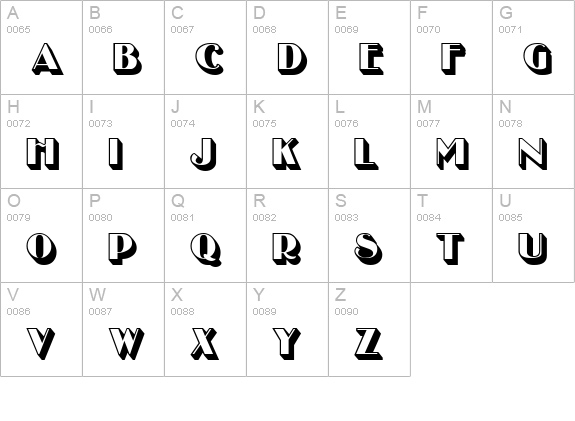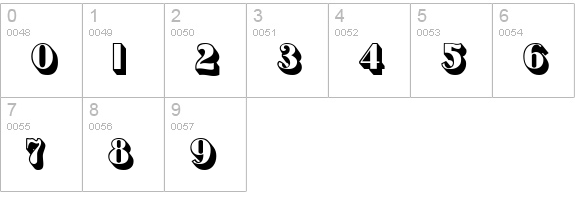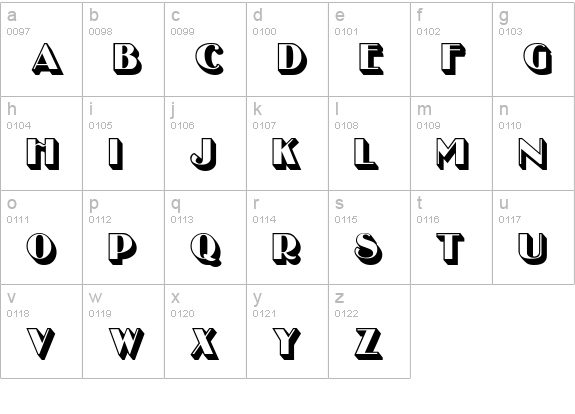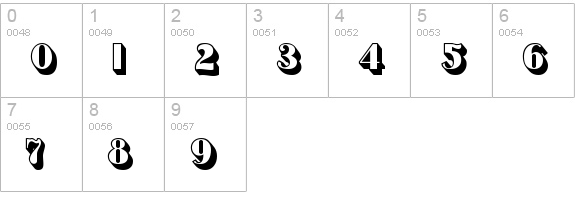
Uncle Bob MF Shadow font is a versatile and stylish typeface that exudes a sense of mystery and sophistication. With its bold and dramatic shadow effect, this font is perfect for creating eye-catching headlines, titles, and branding materials. The unique design of Uncle Bob MF Shadow font adds depth and dimension to any project, making it stand out from the crowd. Best of all, Uncle Bob MF Shadow font is available for free download at FontsMarket.com. Whether you're working on a personal project or a professional design, this font is a fantastic choice for adding a touch of elegance and intrigue. Don't miss out on the opportunity to enhance your creations with the captivating Uncle Bob MF Shadow font - download it today and let your creativity shine!